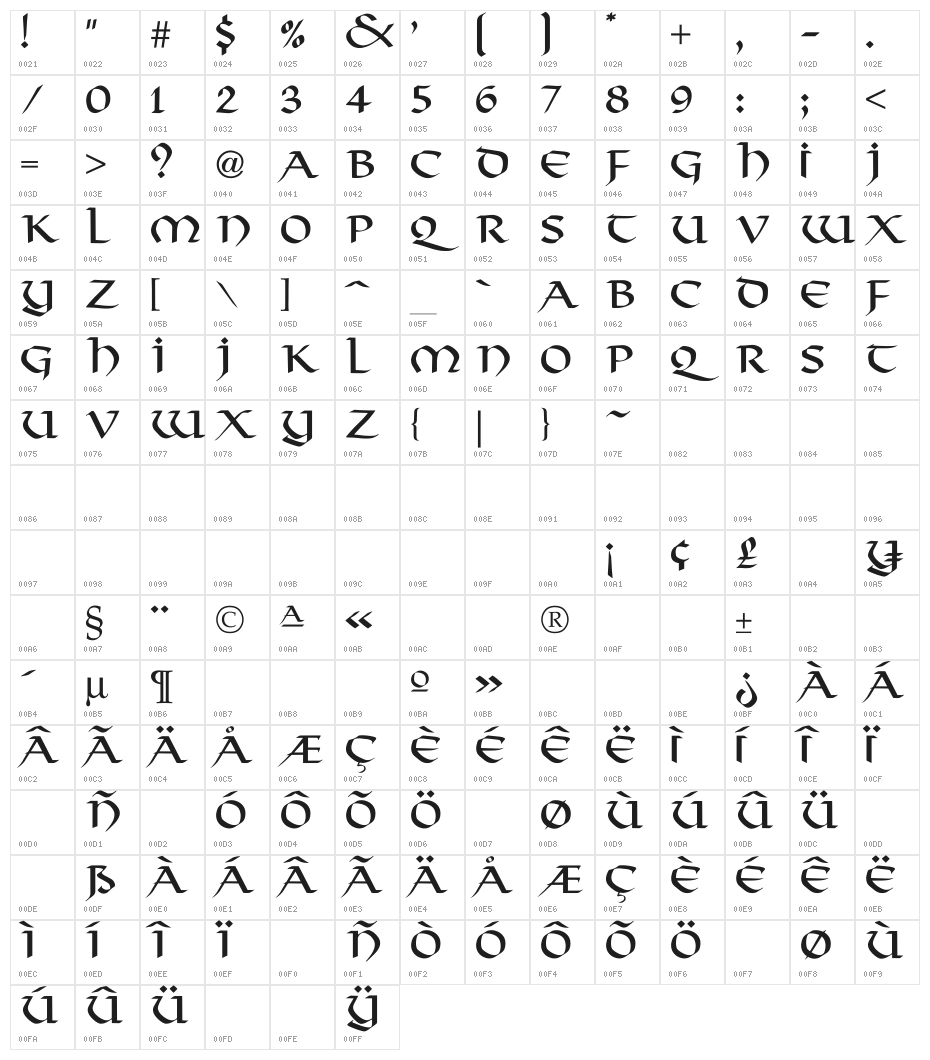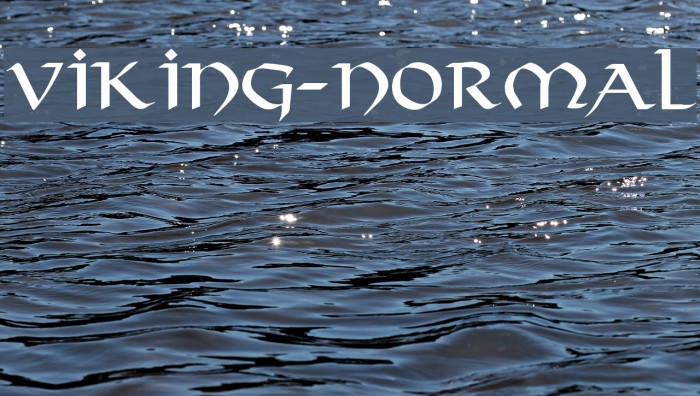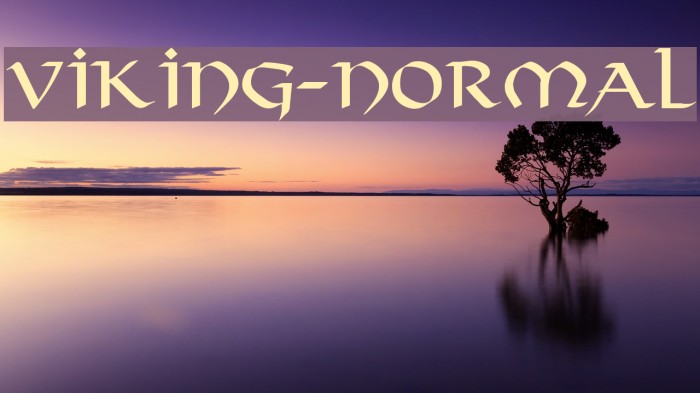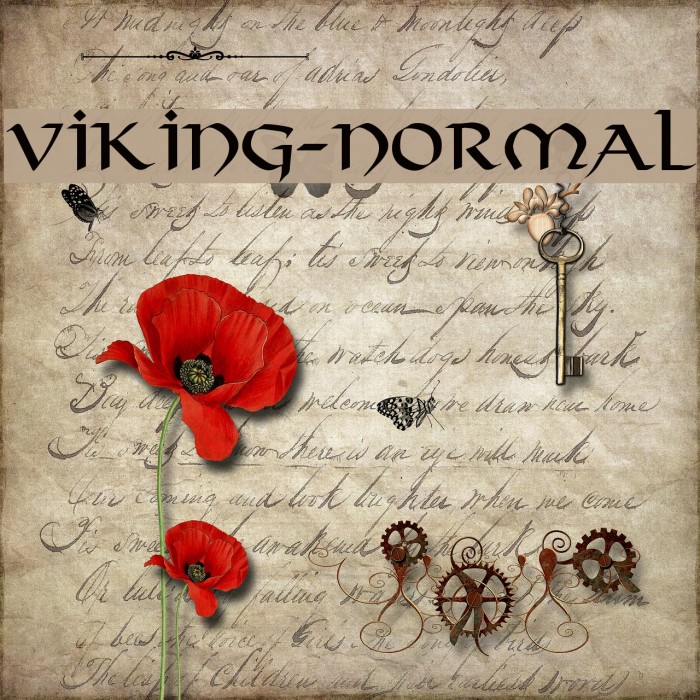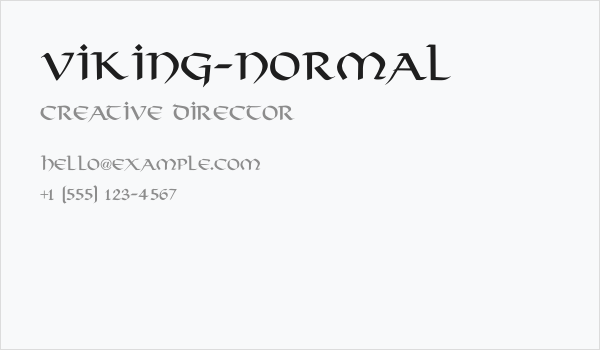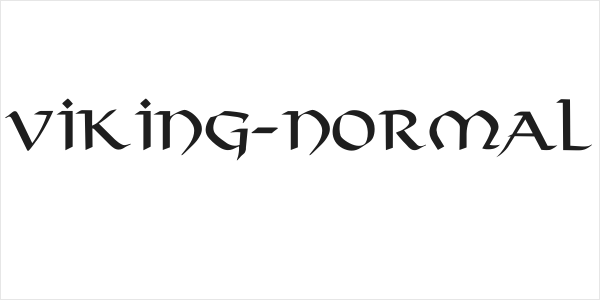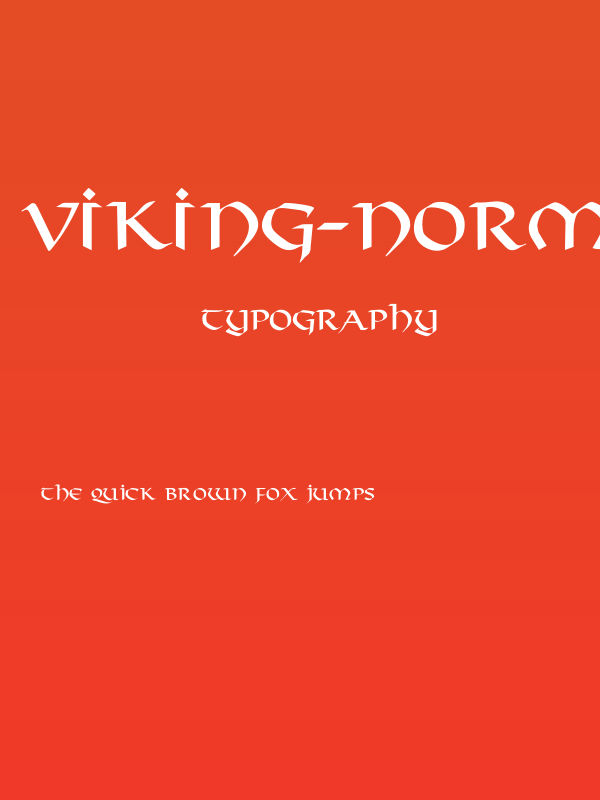
Viking-Normal Font
Viking-Normal Description
This font features a bold, angular design with sharp serifs and a distinct medieval flair. The characters are crafted with a sense of historical elegance, reminiscent of ancient scripts and runes. The uppercase letters are particularly striking, with strong vertical lines and pointed edges that convey a sense of strength and tradition. The lowercase letters maintain this aesthetic, offering a cohesive look across the typeface. Numbers and special characters are designed to match the overall theme, ensuring consistency in any text application.
Overall StyleVintage
Proposed ProjectsIdeal for projects requiring a historical or fantasy theme, such as book covers, game titles, or themed event invitations.